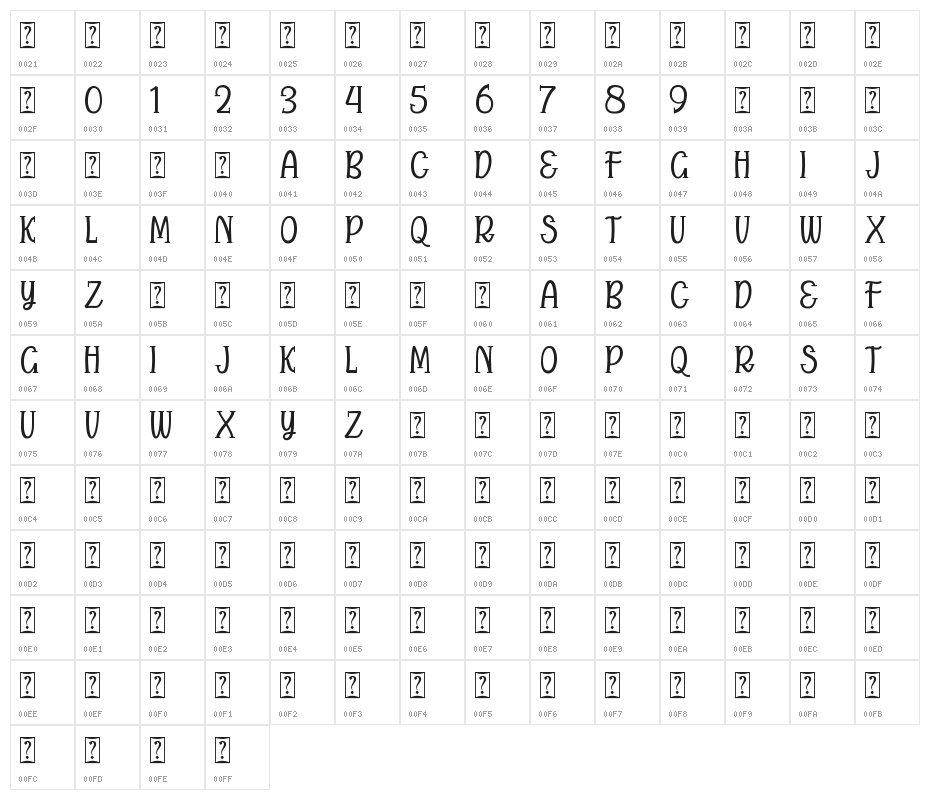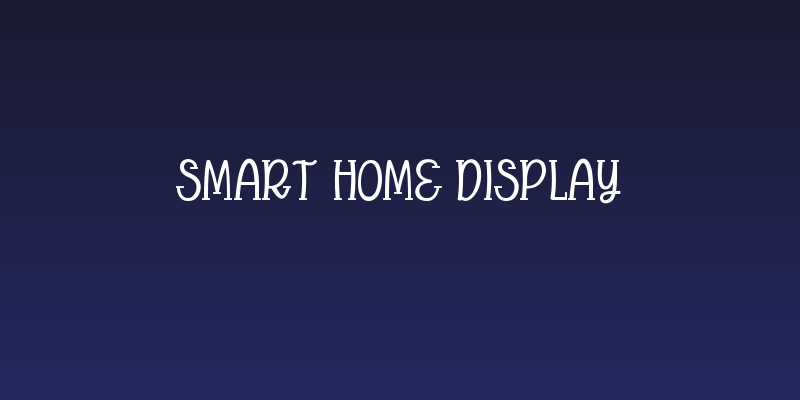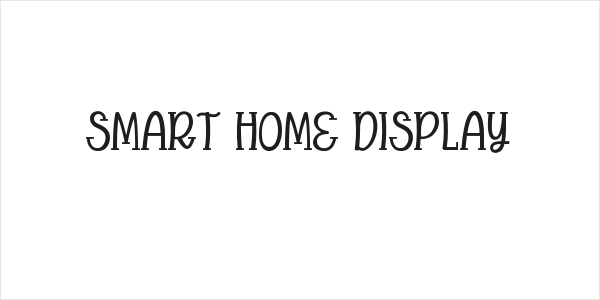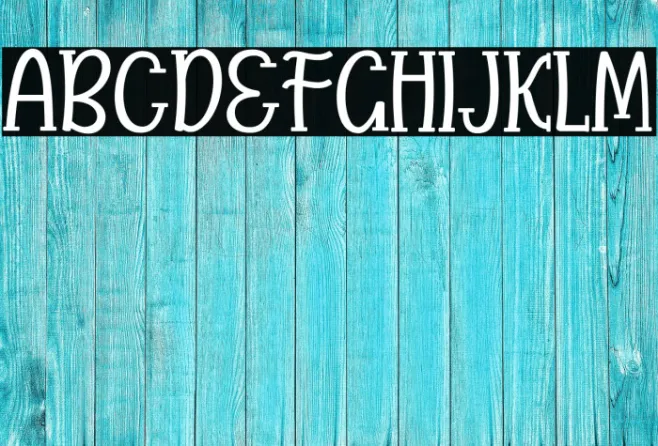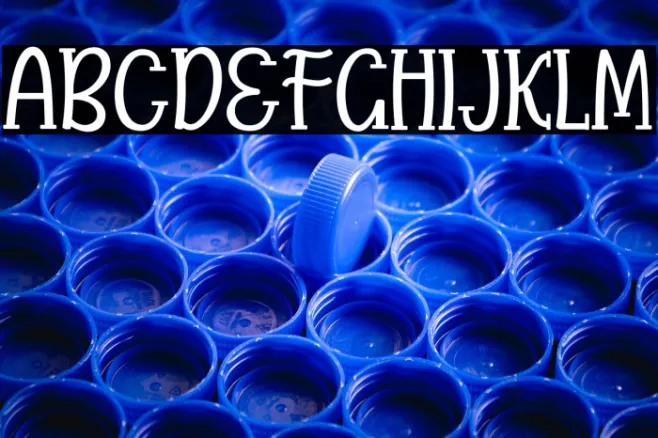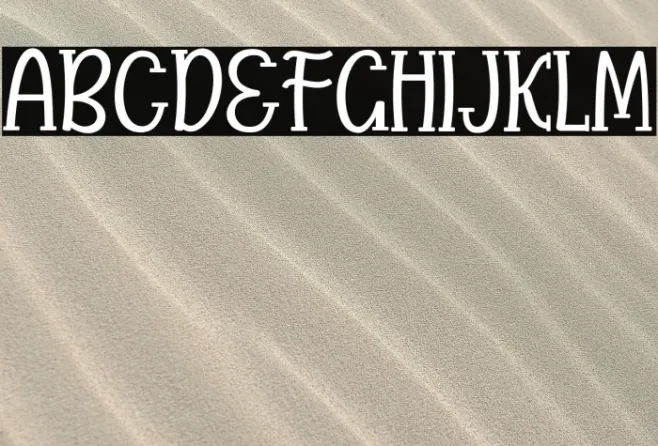
Smart home Display Font
Smart home Display Description
This font features a playful and whimsical design, characterized by its curvy and slightly exaggerated letterforms. The uppercase letters exhibit a unique blend of traditional serif elements with a modern twist, creating a sense of movement and energy. The lowercase letters maintain this lively aesthetic, with smooth curves and a consistent stroke width that adds to the font's readability. Numbers are bold and clear, making them stand out effectively. The special characters are designed with the same playful style, ensuring a cohesive look across all text elements. This font is ideal for projects that require a fun and engaging visual appeal.